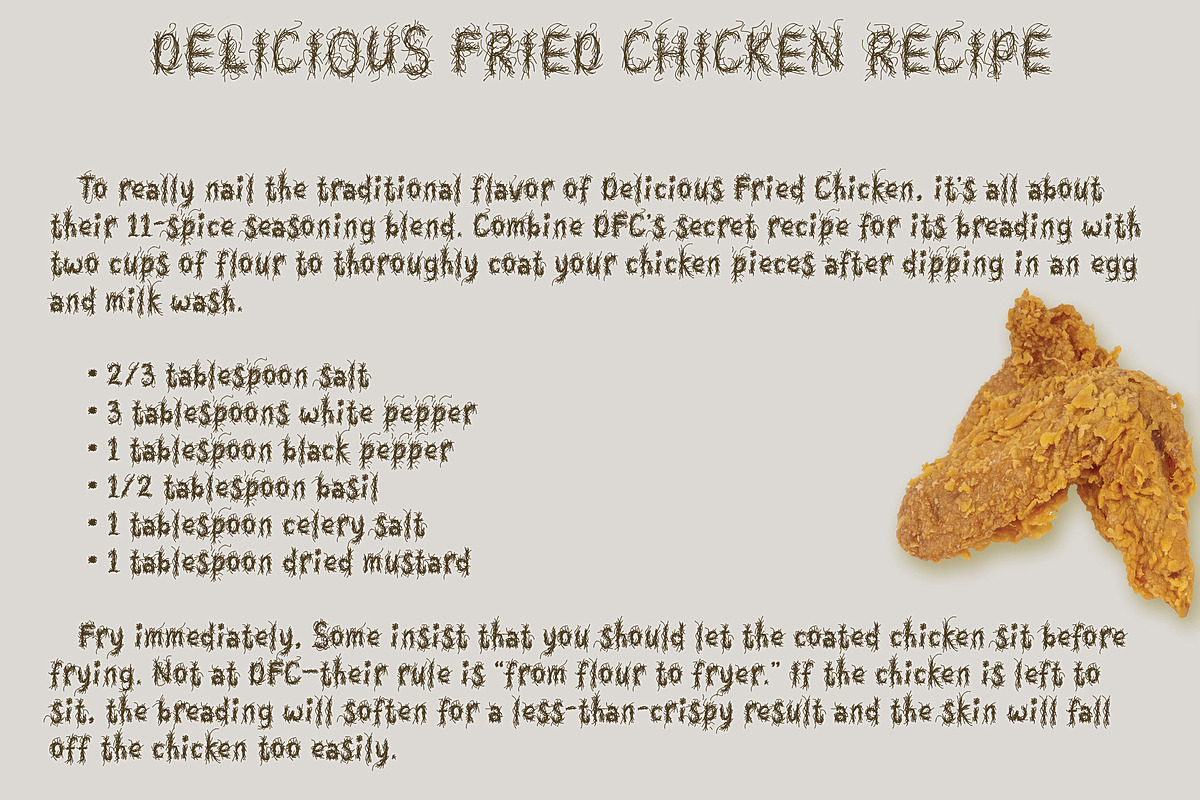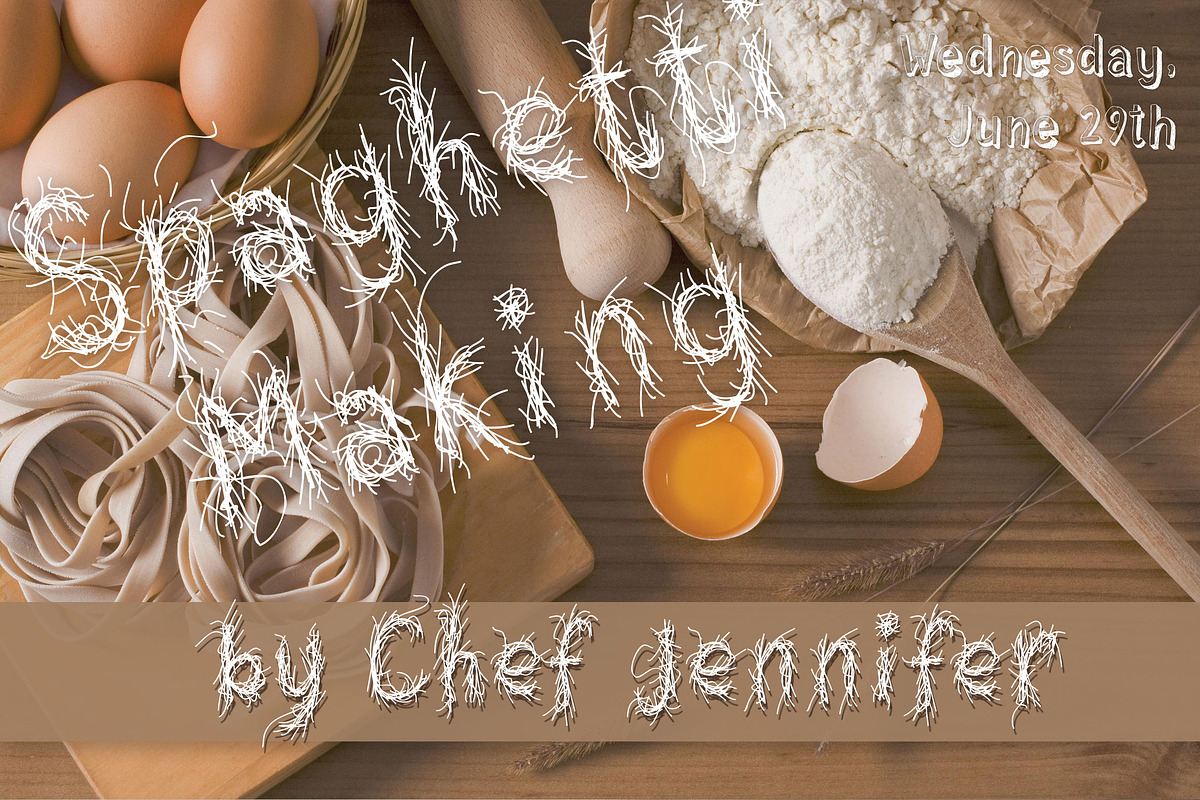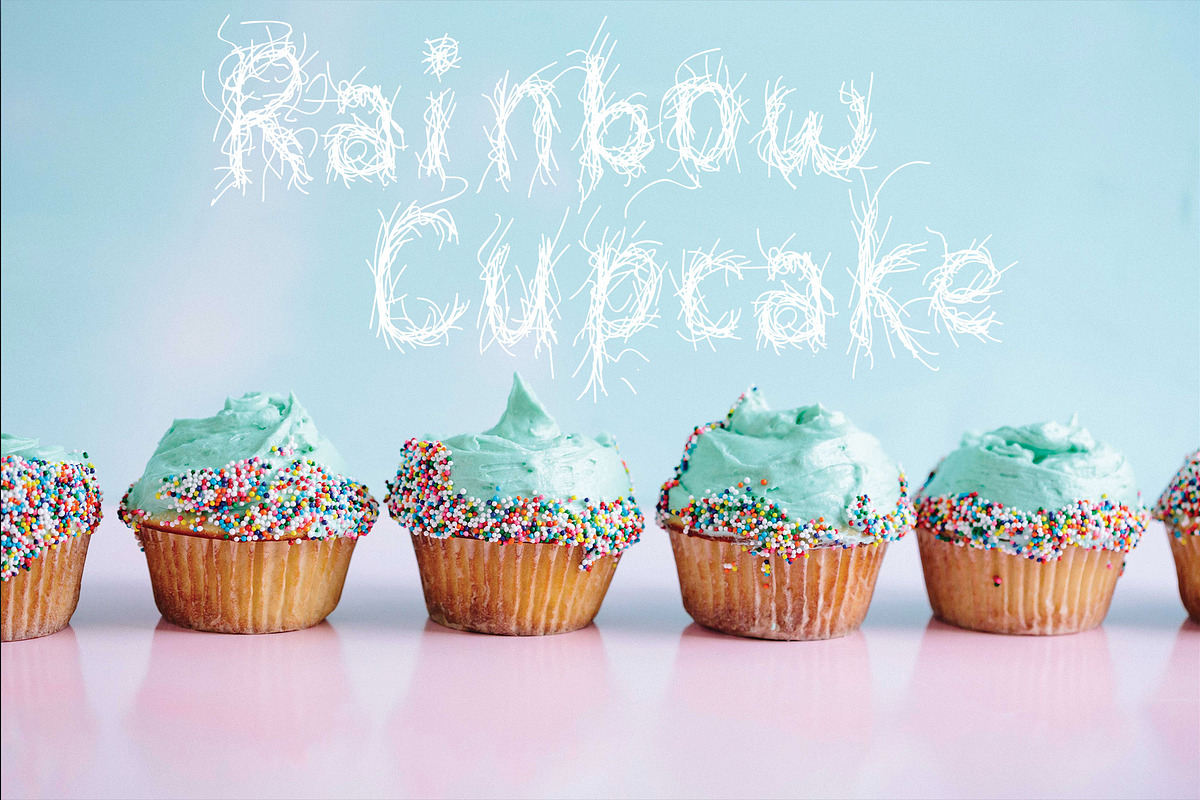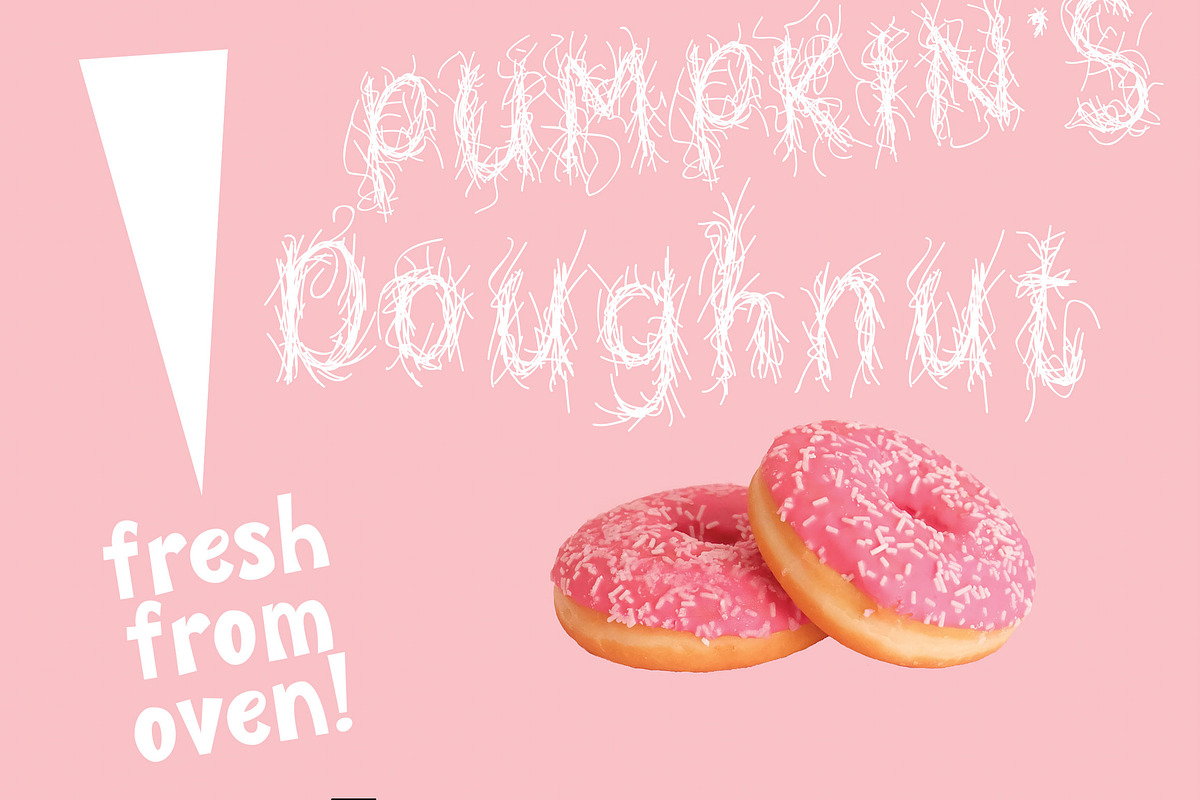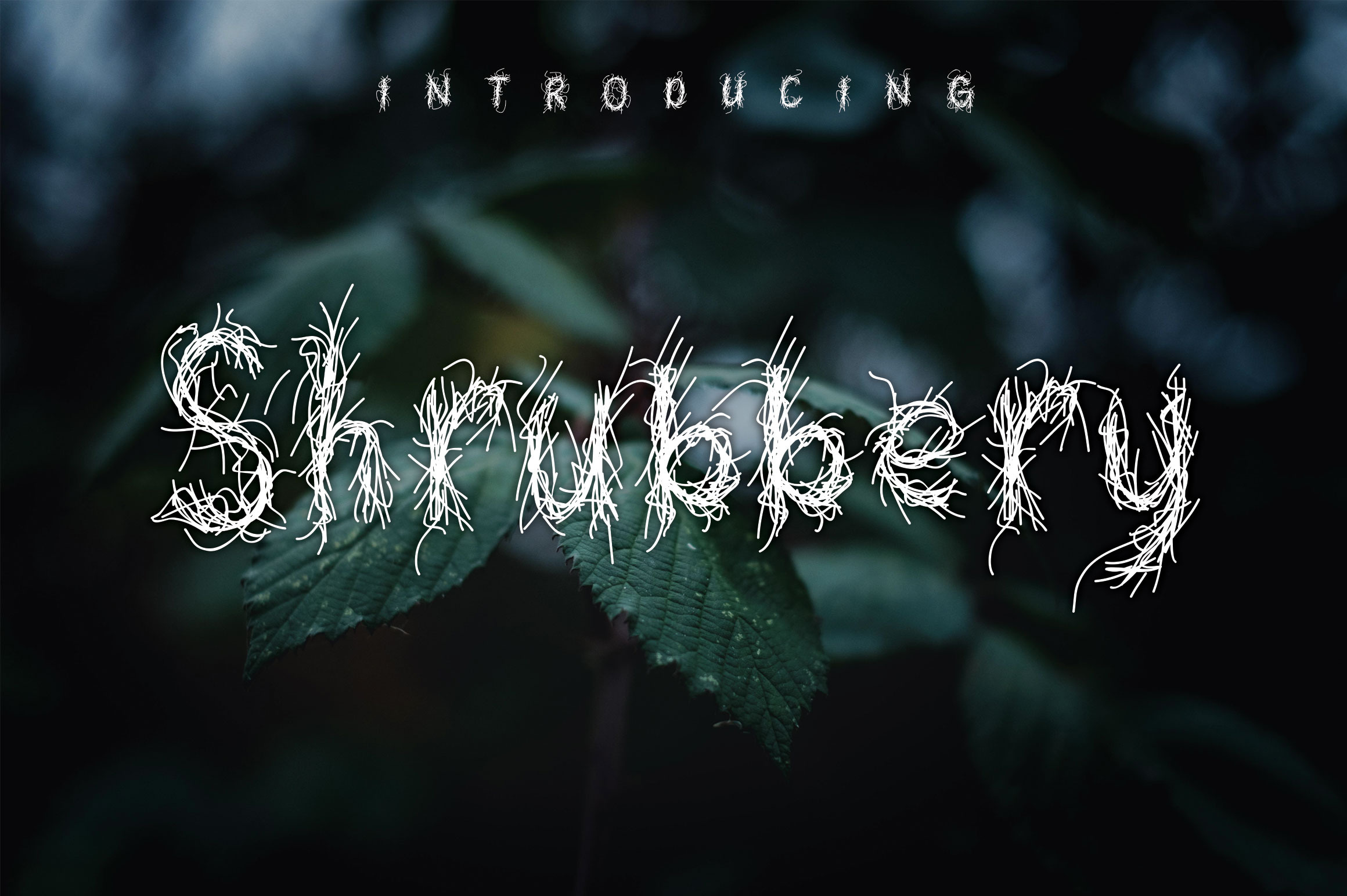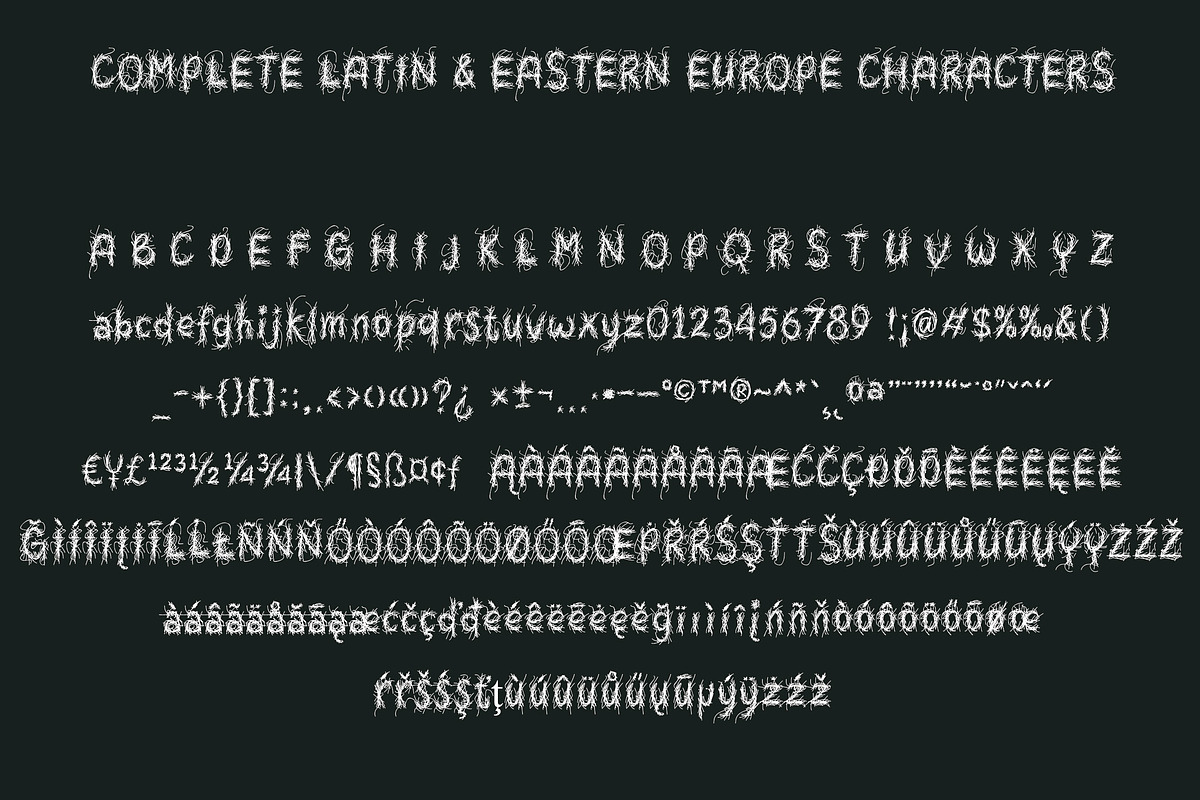
Shrubbery | Sketch Font
Introducing a new unique font! This font look like bush or shrubbery, will nice for design with informal style, for food, farming, agriculture, etc. This is a display font suitable for title, subtitle, even text for YouTube thumbnail, magazine, flyer, book, etc.
This font contain 290 glyphs, supported to Latin, and Turkish characters.